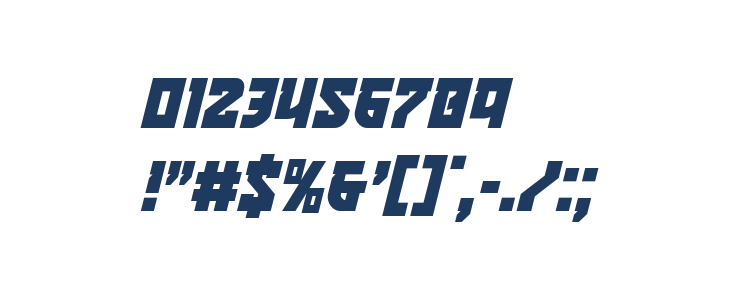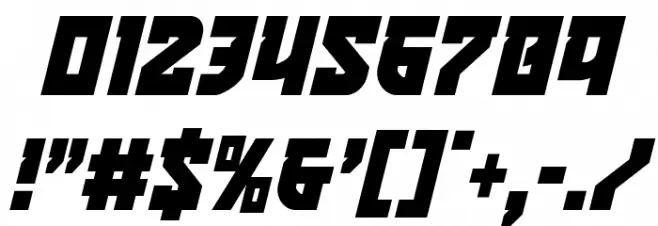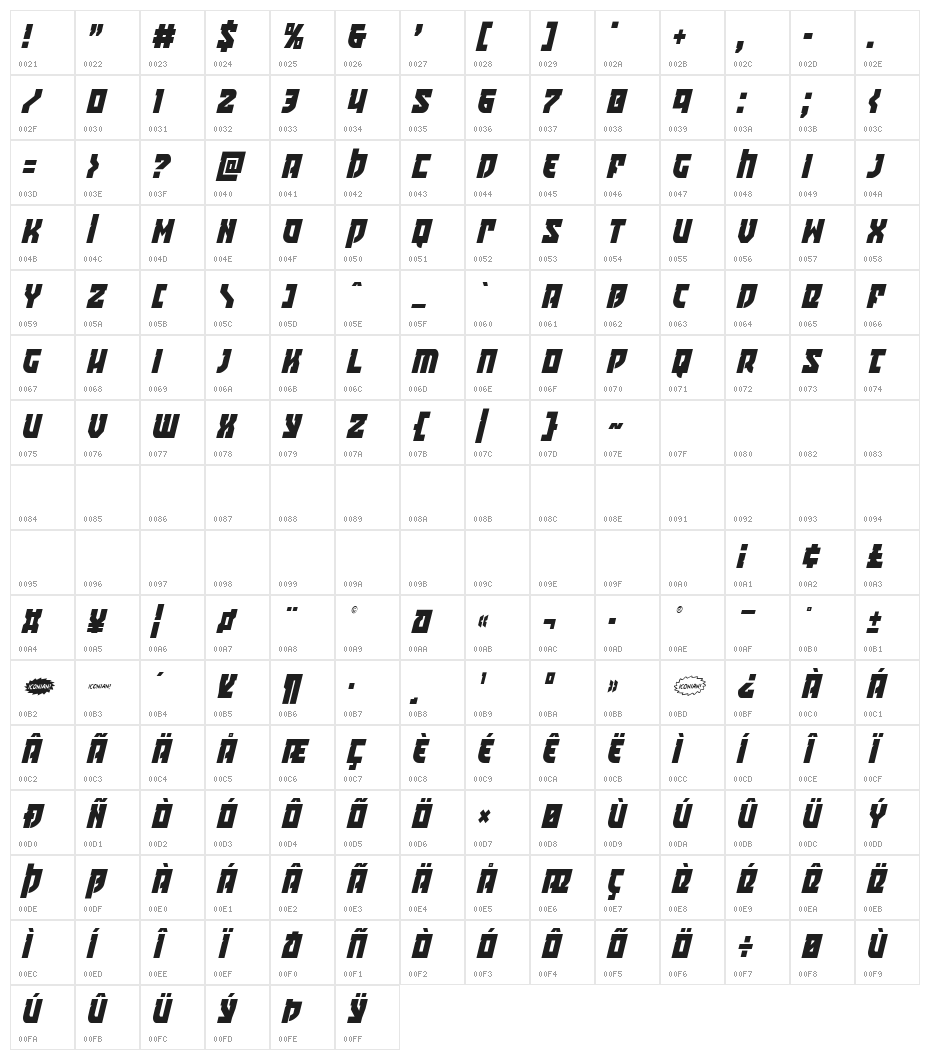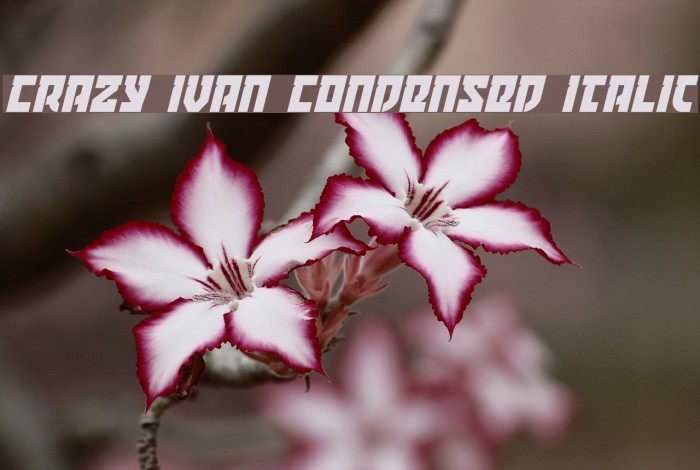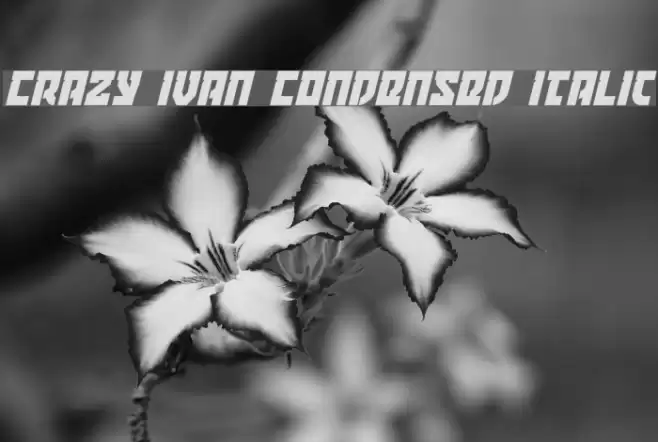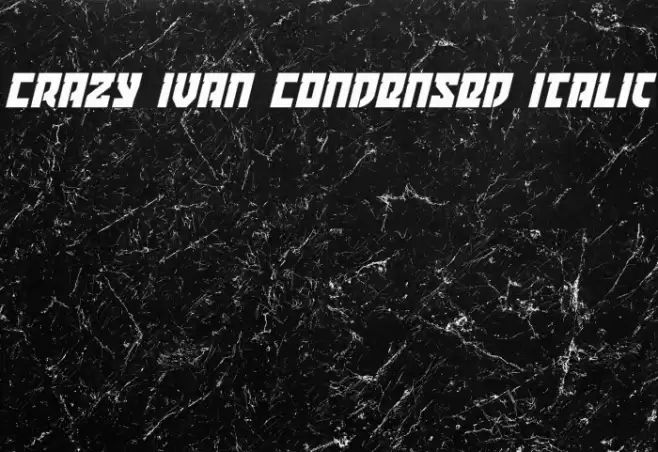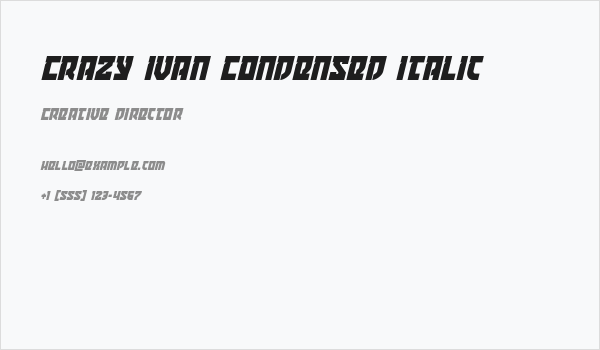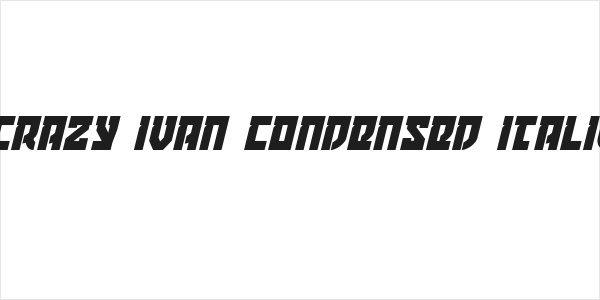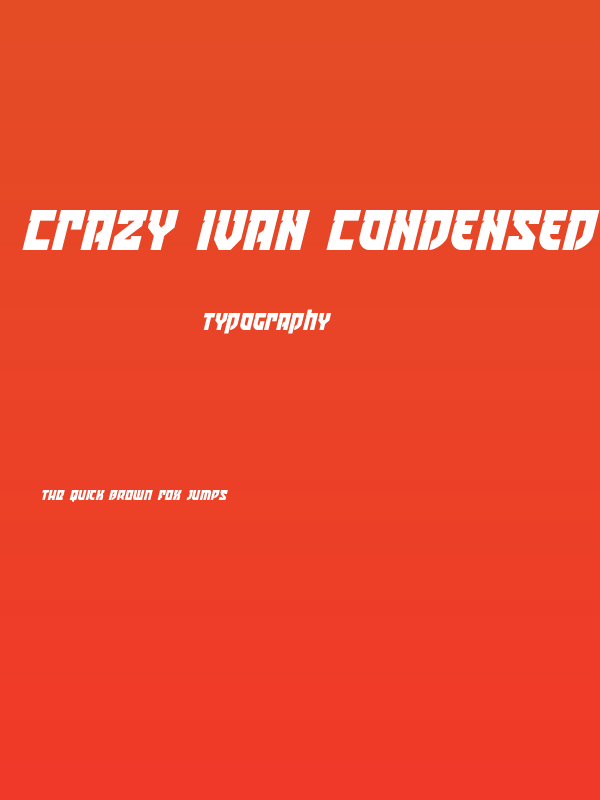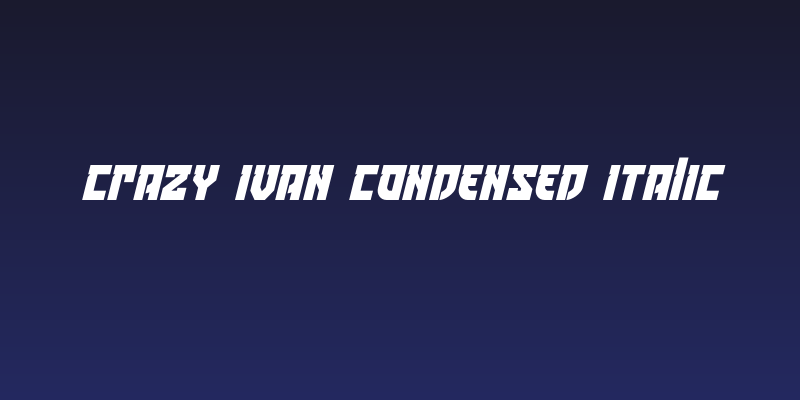
Crazy Ivan Condensed Italic Font
Crazy Ivan Condensed Italic Description
This font features a bold and dynamic style with sharp, angular edges and a condensed form. The italic slant adds a sense of motion and urgency, making it stand out in any design. Each character is crafted with precision, offering a futuristic and edgy appearance. The uppercase and lowercase letters maintain a consistent style, while the numerals and special characters complement the overall design. This font is ideal for projects that require a strong visual impact and a modern aesthetic.
| Proposed Projects | Ideal for sports branding, video game titles, movie posters, and dynamic advertising campaigns. |